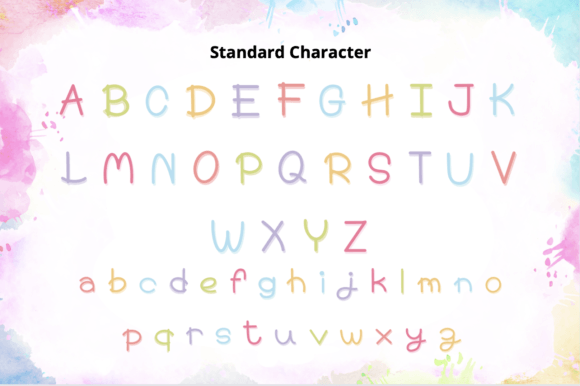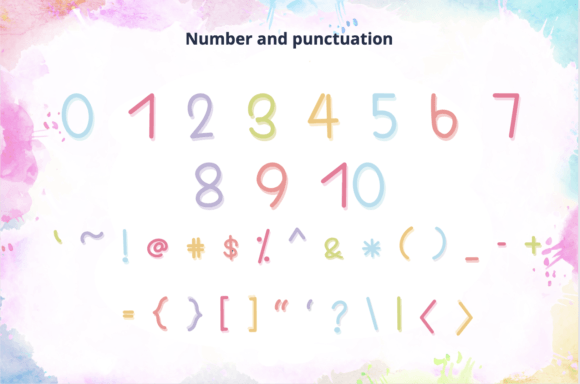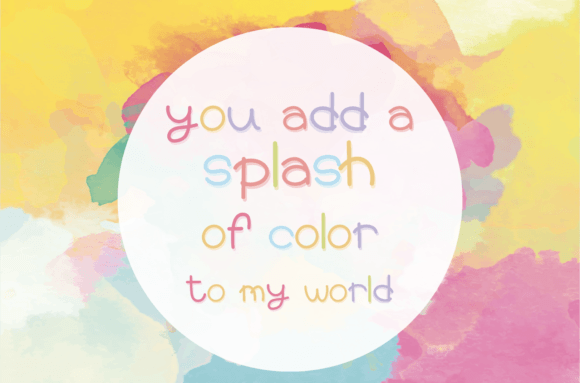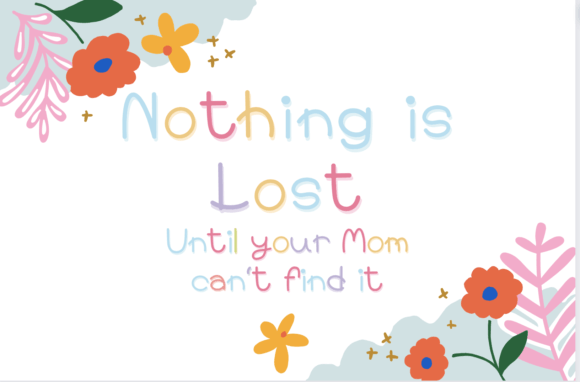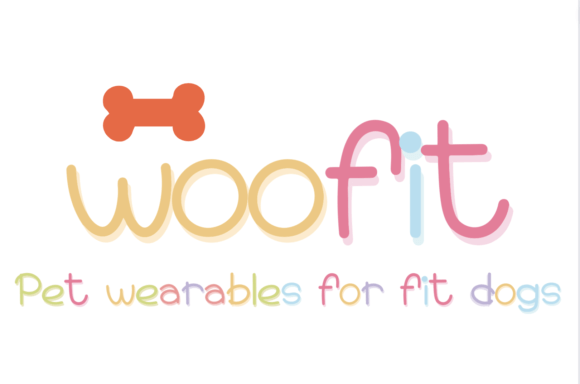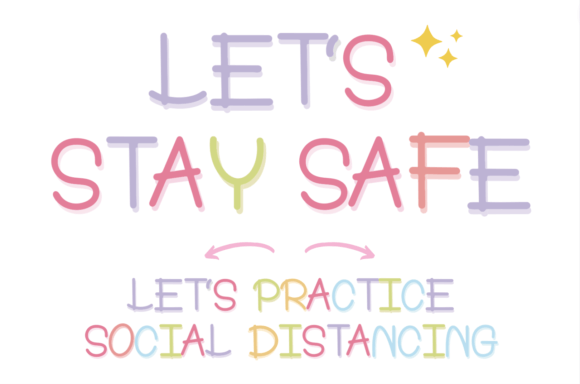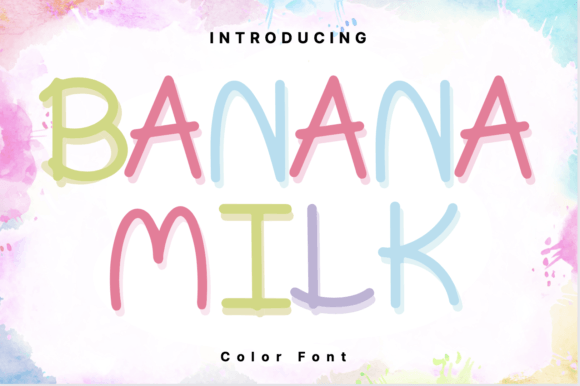
Banana Milk Font: The Ultimate Design Asset for Creative Projects
Are you tired of using the same old fonts in your design projects? Look no further than the Banana Milk Font! This vibrant and dynamic font is a true feast for the eyes, perfect for designers and crafters who want to add a touch of fun and creativity to their work.
The Unique Design of Banana Milk Font
What sets Banana Milk Font apart from other fonts is its unbalanced design, which creates an energetic and spontaneous feel. The bright and bold colors used in this font add a sense of playfulness and excitement, making it perfect for projects that require a youthful and lively vibe.
The font’s unique design is sure to grab attention and make your project stand out from the crowd. Whether you’re working on a logo, brochure, or social media graphics, Banana Milk Font is sure to add a pop of personality and whimsy.
Banana Milk Font is perfect for a wide range of creative projects, from fun and playful designs to more experimental and avant-garde works. Its bold and vibrant colors make it ideal for:
- Children’s books and educational materials
- Playful logos and branding
- Social media graphics and animations
- Party invitations and event materials
- Advertising and marketing campaigns
Key Features of Banana Milk Font
Here are some of the key features that make Banana Milk Font so special:
- Unbalanced design: Creates an energetic and spontaneous feel
- Bright and bold colors: Adds a sense of playfulness and excitement
- Unique and eye-catching: Perfect for projects that require a touch of fun and creativity
- Highly versatile: Suitable for a wide range of creative projects
Tips for Using Banana Milk Font
Here are some tips for using Banana Milk Font in your design projects:
- Use it sparingly: Banana Milk Font is best used in moderation, as its bold and vibrant colors can be overwhelming if overused.
- Pair it with neutral fonts: Balance out the boldness of Banana Milk Font by pairing it with neutral fonts, such as Arial or Helvetica.
- Experiment with colors: Try out different color combinations to find the perfect match for your project.
- Have fun: Most importantly, have fun with Banana Milk Font! Its playful and energetic vibe is sure to bring a smile to your face.
| Font Name | Banana Milk Font |
| Author | AchiArt |
In conclusion, Banana Milk Font is a true design gem that is sure to add a touch of fun and creativity to your projects. Its unique and eye-catching design, bright and bold colors, and highly versatile nature make it perfect for a wide range of creative projects. So why not give it a try and see the difference it can make?